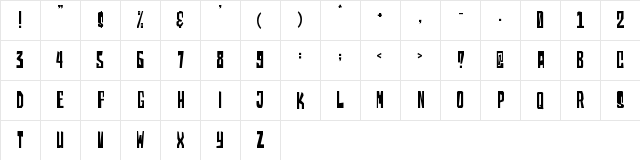
Sizela Demo Regular
| Foundry | Dxsign Type |
| Designer | Adriyawan |
Design Context for Sizela Demo Typeface
Sizela Demo offers clean, dependable letterforms without strong stylistic allegiance, making it a practical choice for designers who need flexibility.
Pro Tip: Pair Sizela Demo with a font of contrasting weight or personality to build a more expressive typographic hierarchy.